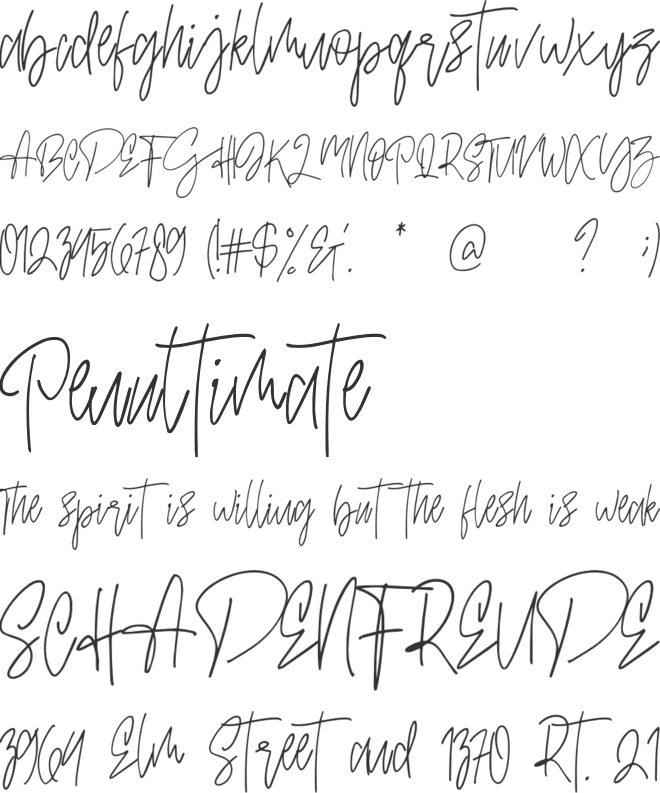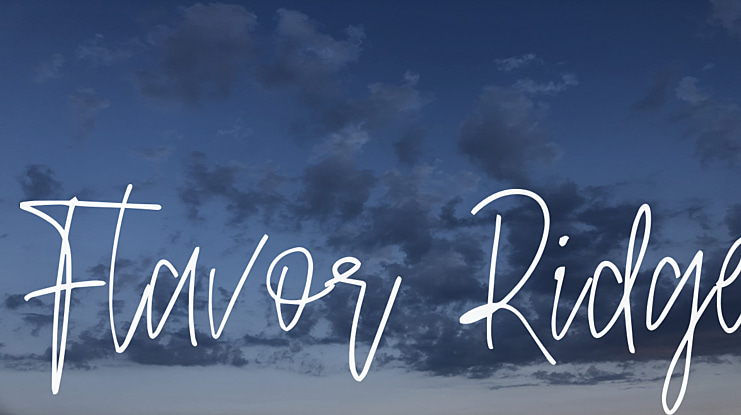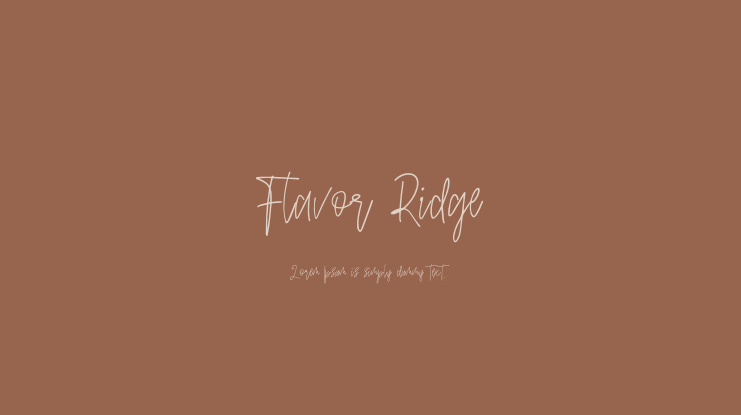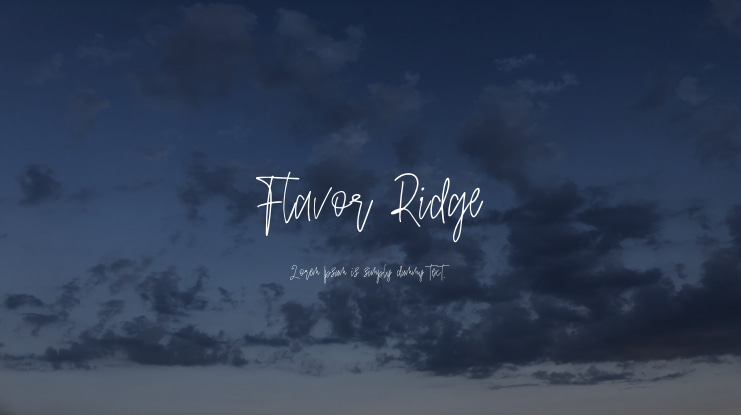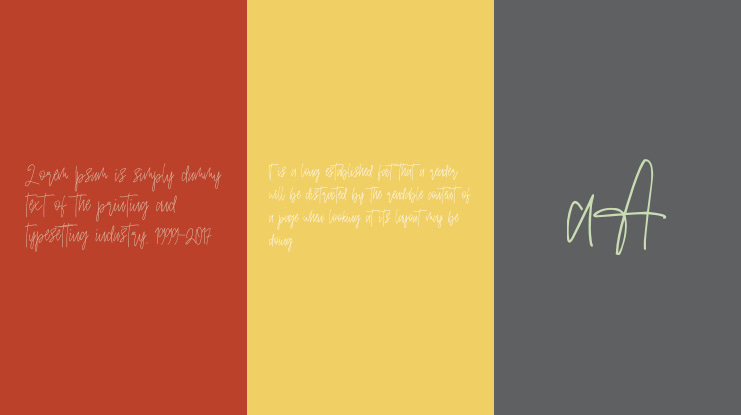
Flavor Ridge Font
Deni Pramadita
Flavoridge is a casual font with natural stroke, comes with uppercase, lowercase, numerals, and punctuation. This font will be perfect pick for various designs & artworks like social media post, brand type, posters, merchandise, packaging, headlines, merchandises, t-shirt, and many more..
Features:
-Uppercase Letters
-Lowercase alternative Letters
-Numbers and Punctuation